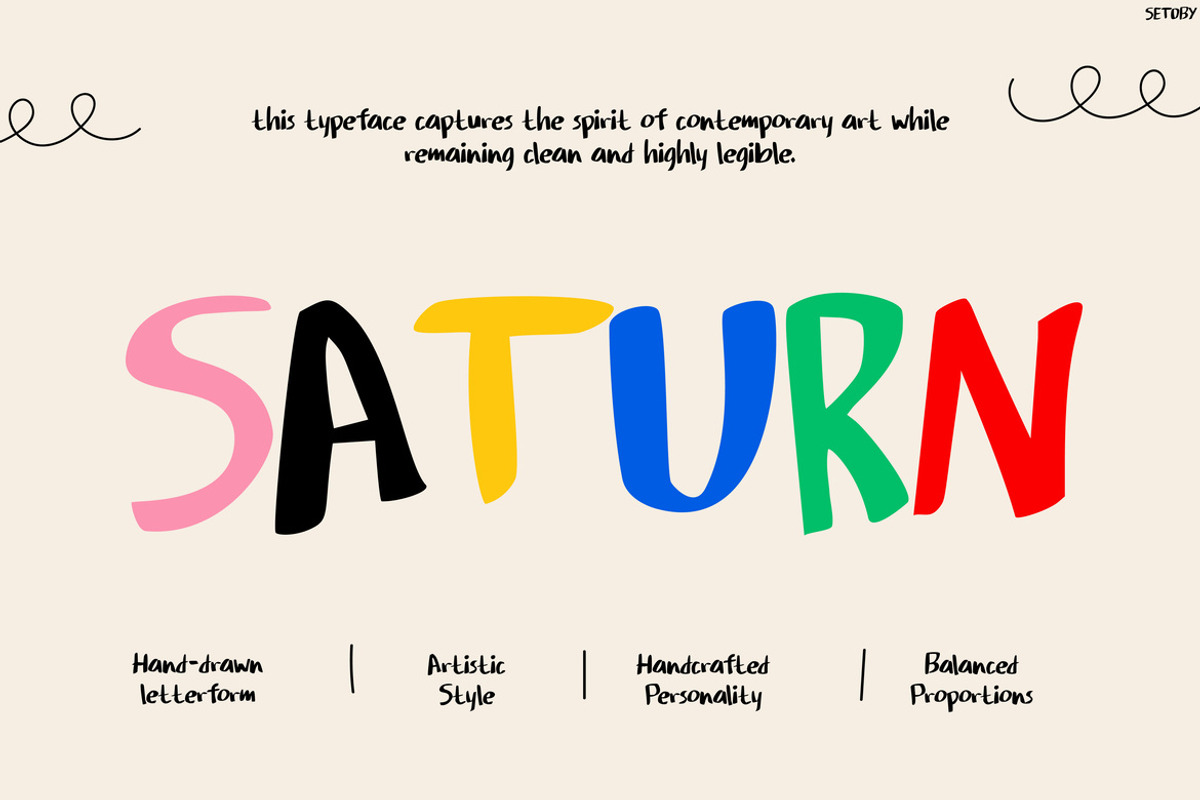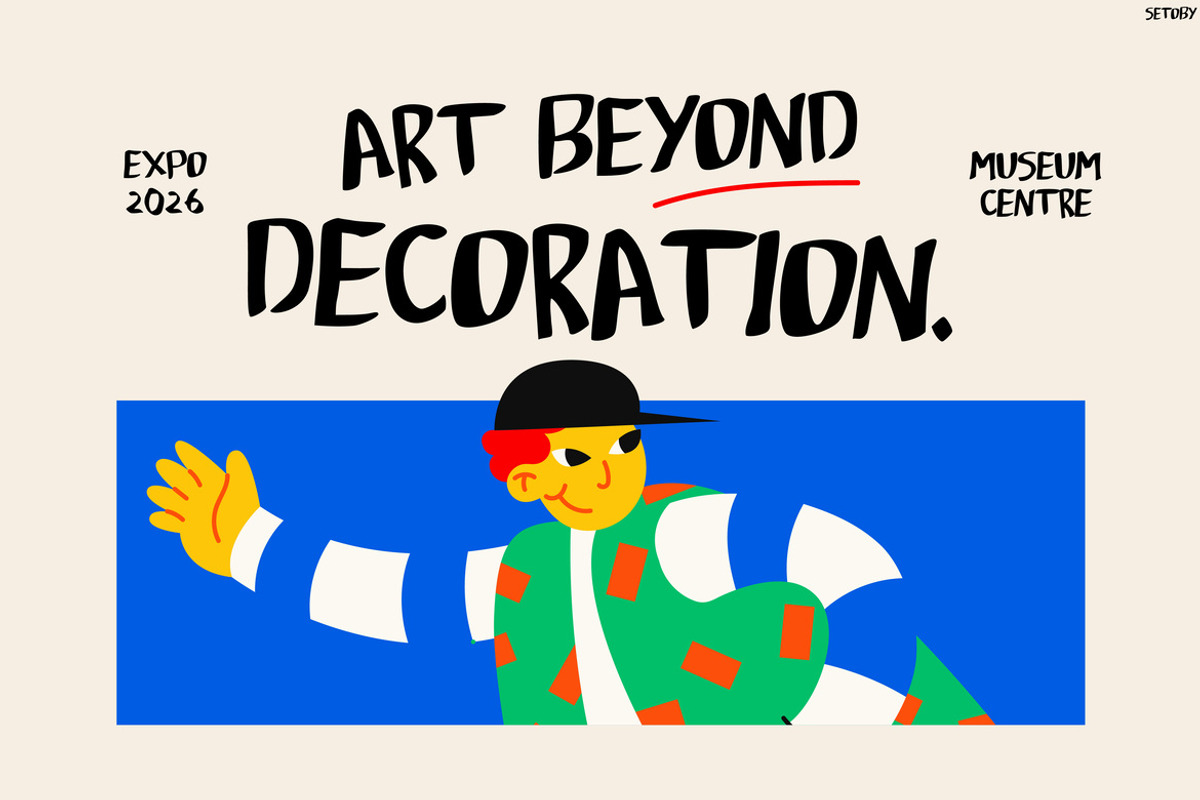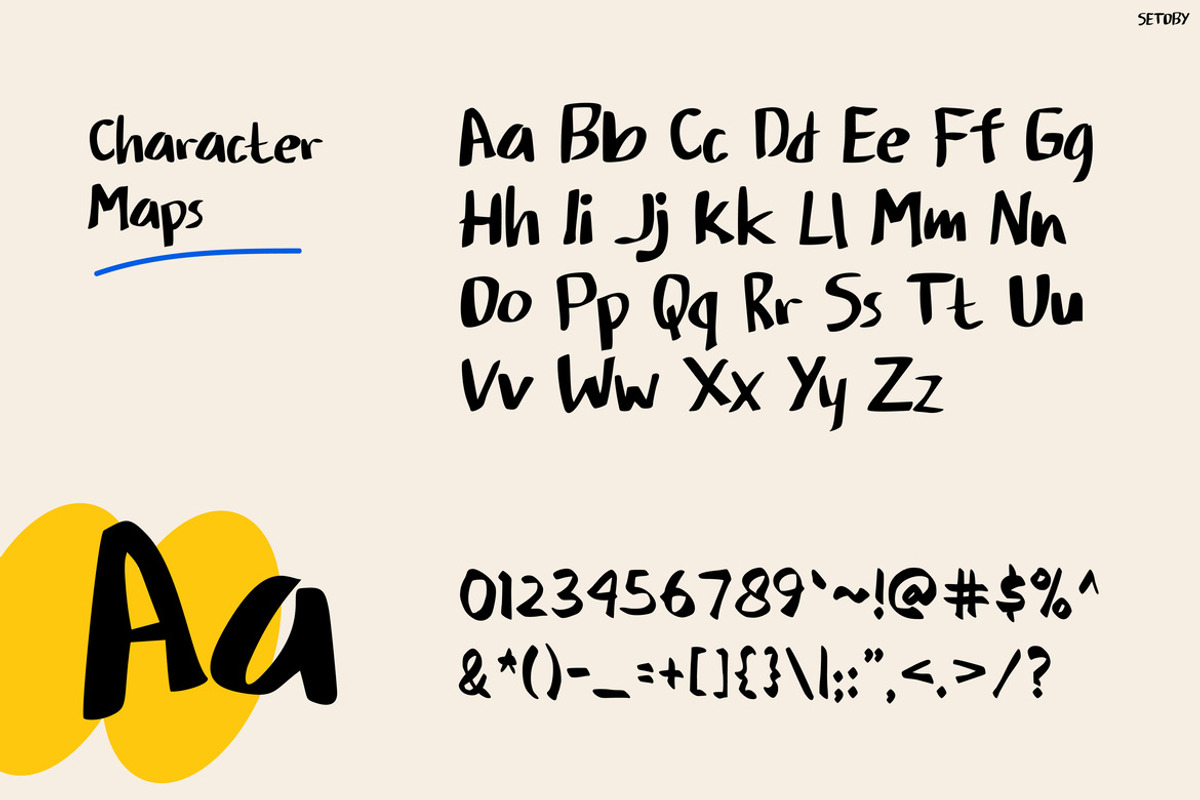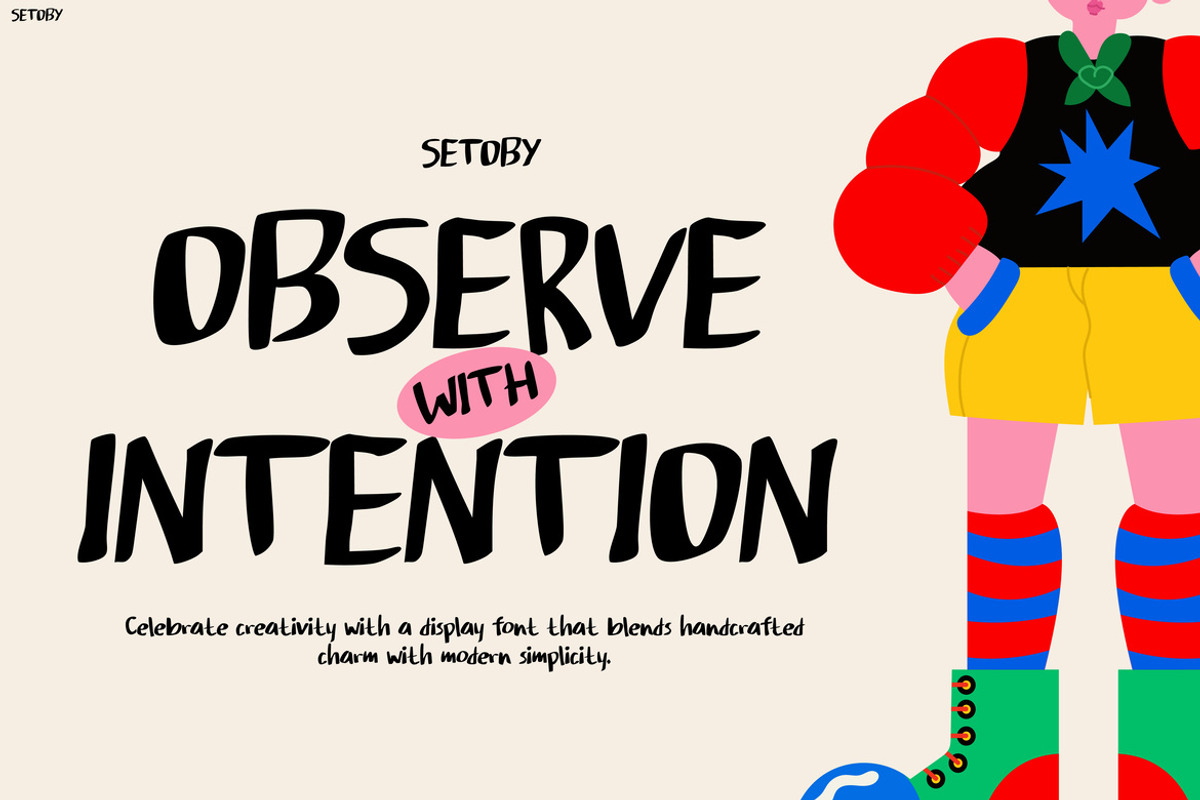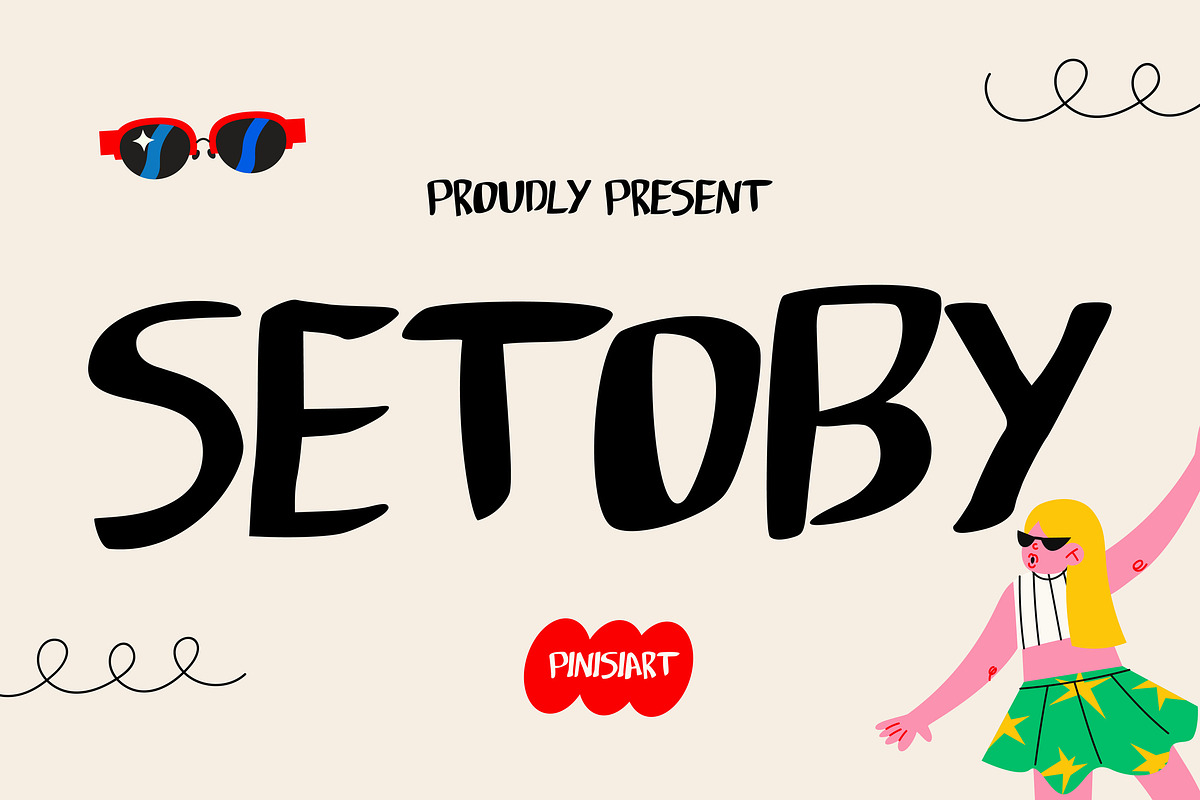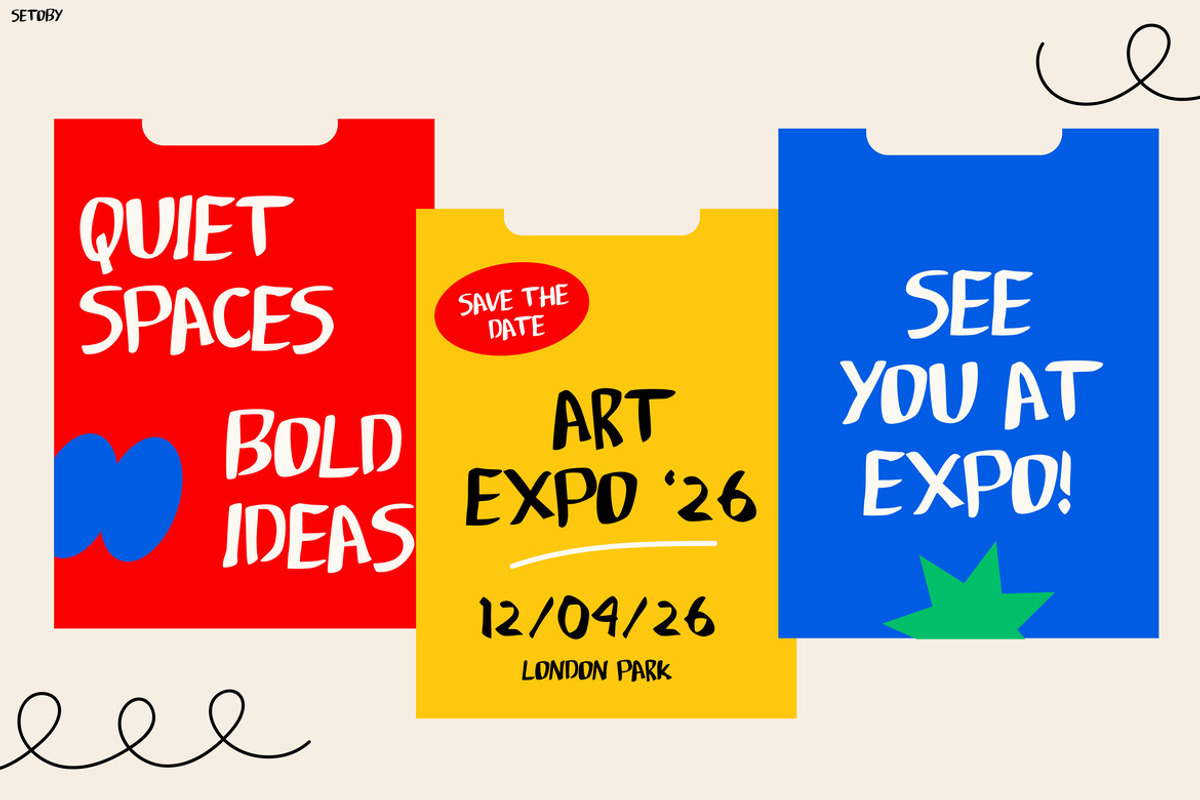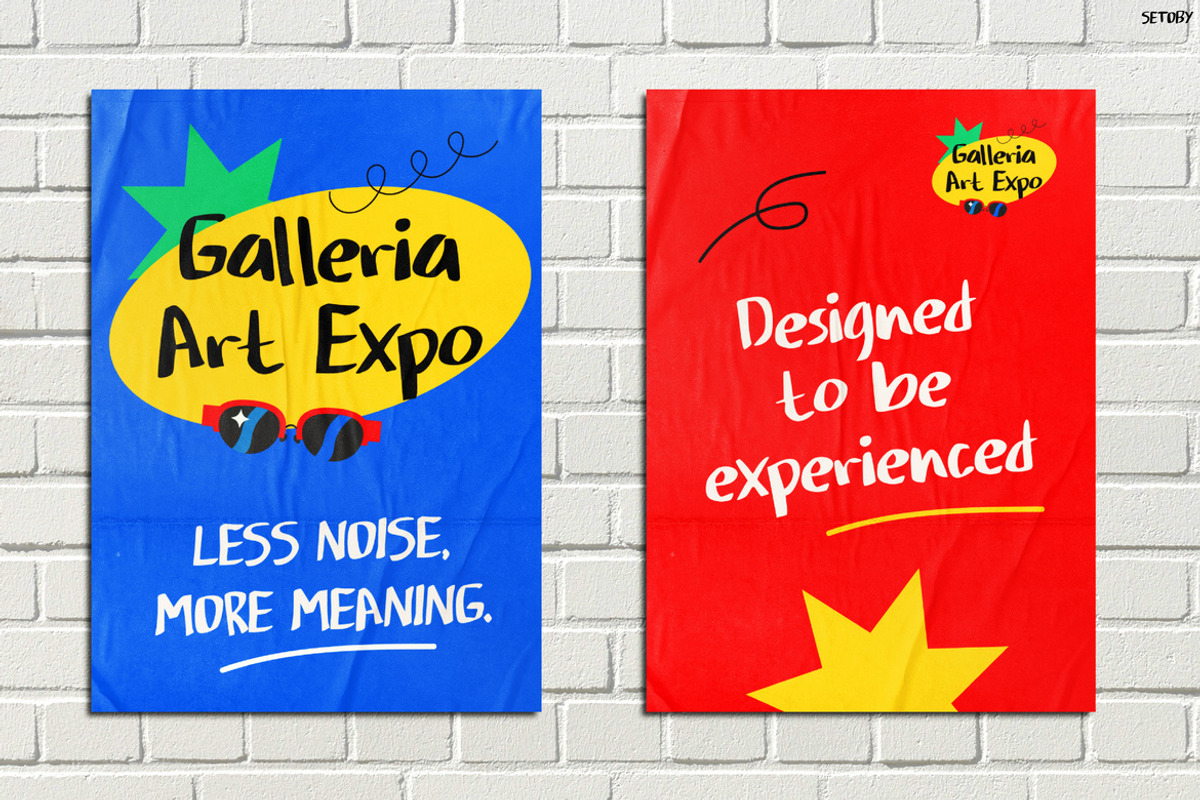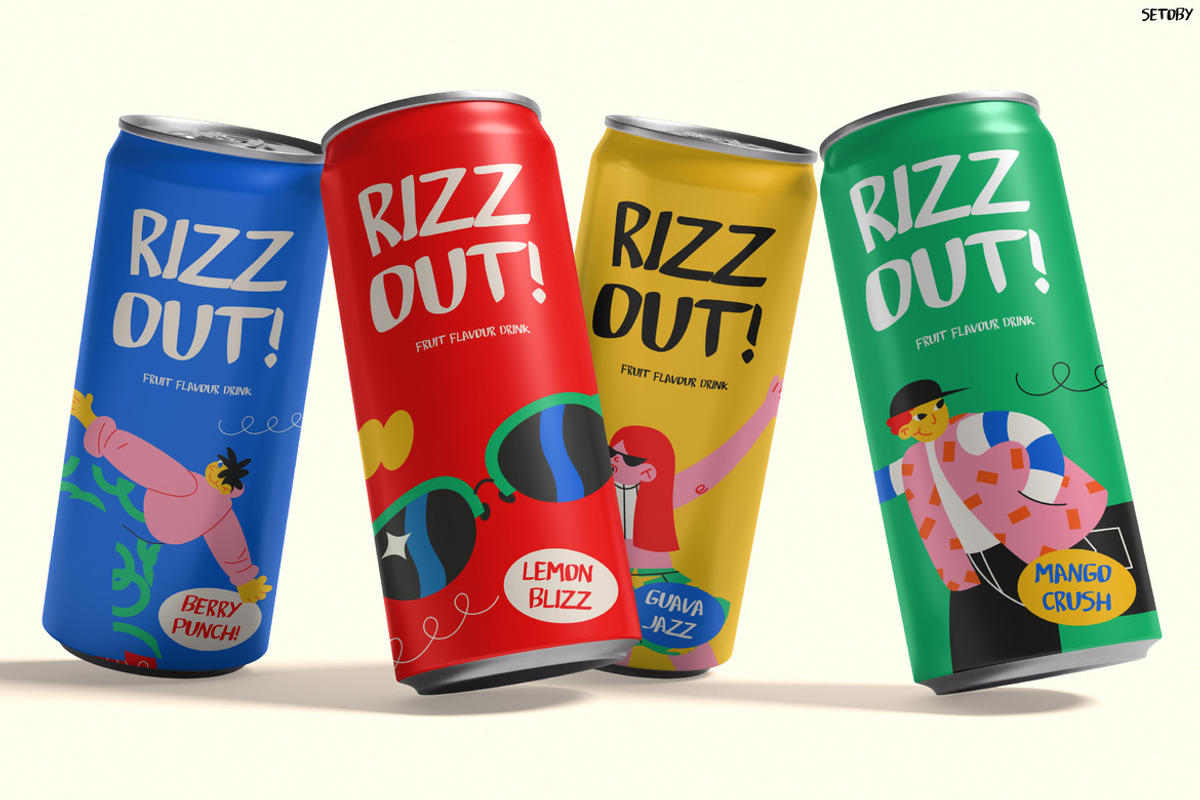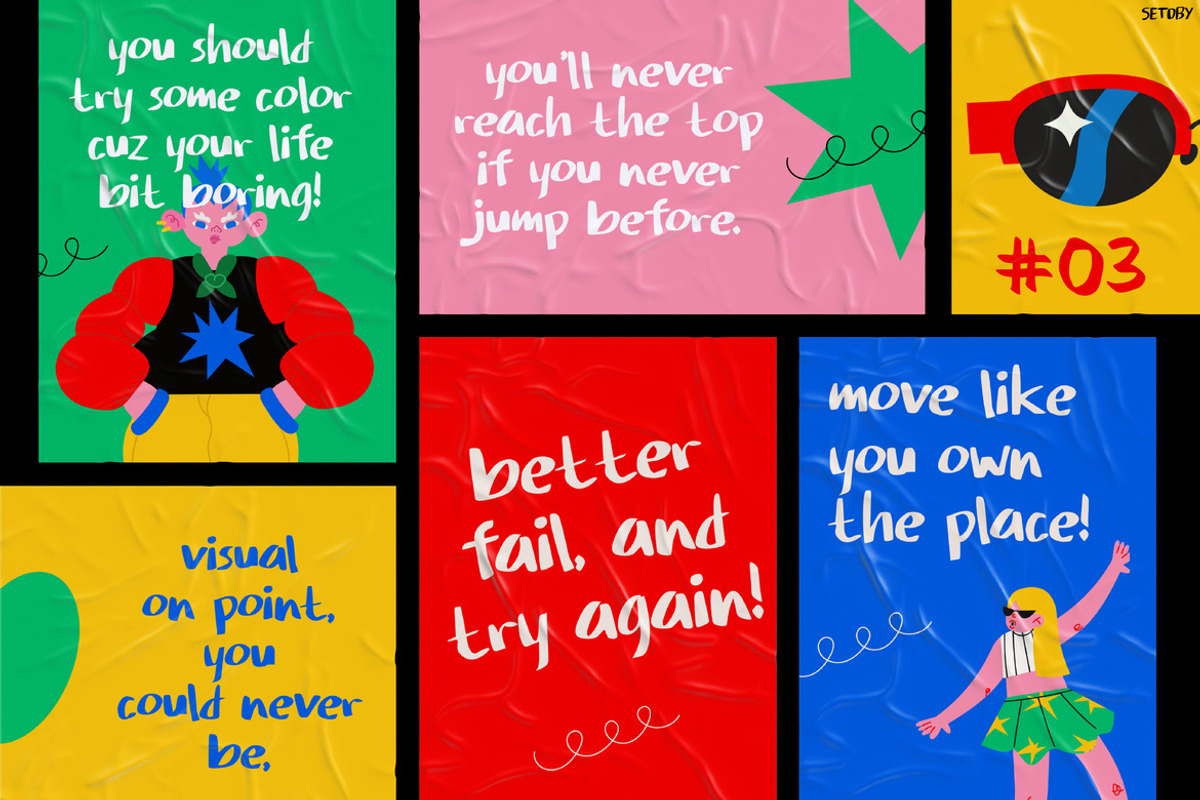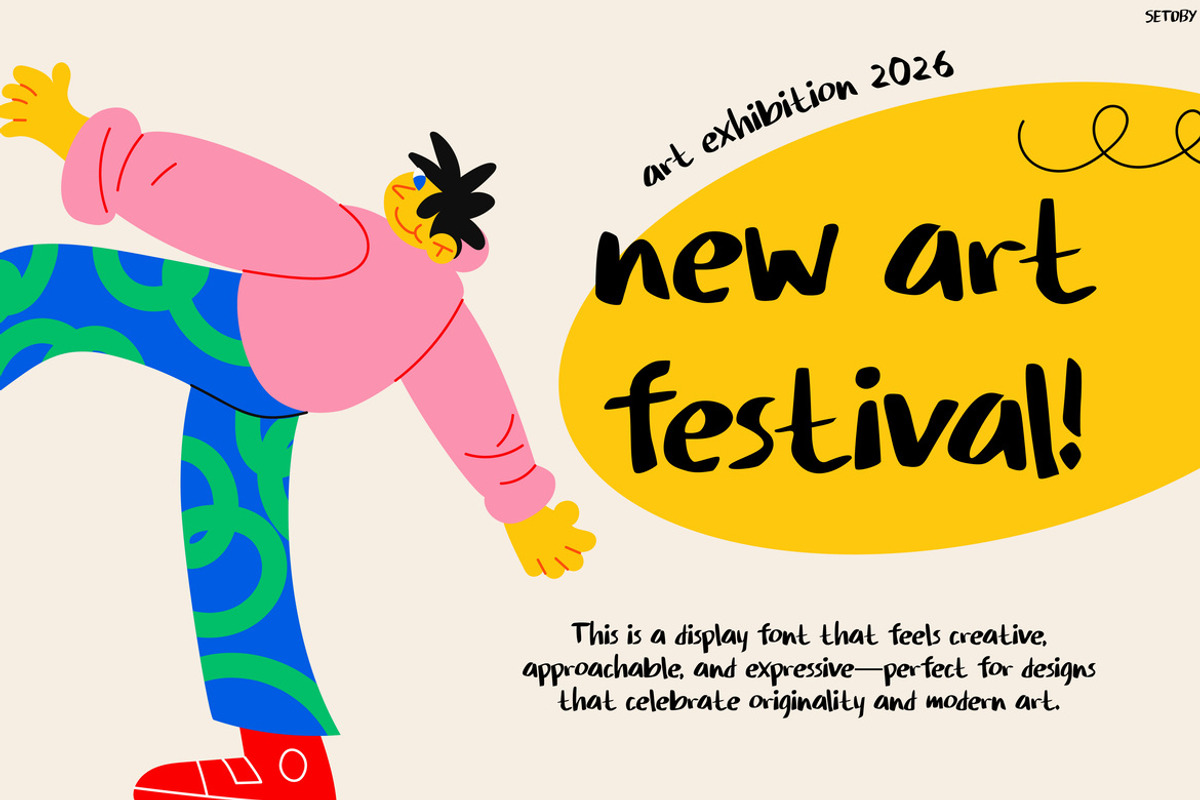
Setoby
Kids Font Setoby – Playful Letters. Endless Happy Creations.
Kids Font Setoby fills every design with joyful charm through its playful handwritten style, rounded strokes, and friendly personality. Unlike ordinary kids fonts, Setoby combines organic letterforms with bold shapes to create typography that feels warm, expressive, and full of imagination. Moreover, every character adds a handcrafted touch, while the smooth rhythm keeps every headline fun and easy to read. As a result, your projects instantly become more inviting and memorable. In addition, the versatile design performs beautifully across both print and digital media, so every creative idea shines with confidence. Whether you’re creating educational materials or playful branding, Setoby helps every message feel lively from the very first letter.